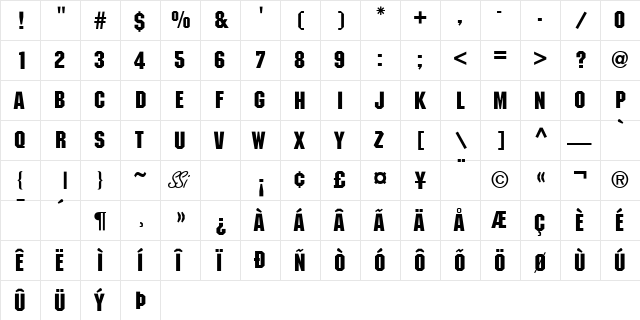
Automaton Caps SSi Regular
Design Context for Automaton Caps SSi Typeface
Automaton Caps SSi is a composed and adaptable typeface that performs quietly and consistently across a wide range of design contexts.